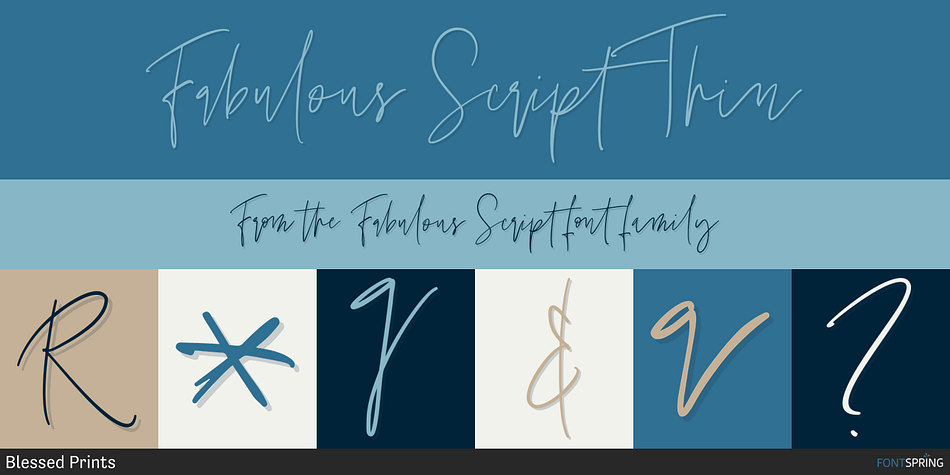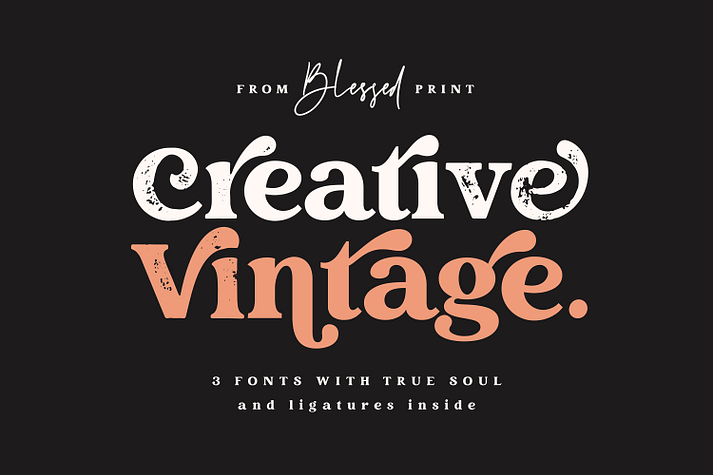
Fabulous Script Thin
Fabulous Script is a display serif and modern calligraphy font family. This typeface has seven styles and was published by Blessed Prints.
Creative Vintage - a modern serif typeface with vintage charm, fashionable look and retro-modern style
Three fonts that match each other perfectly:
Creative Vintage Regular: Opentype serif font with clean shapes and precise kerning. It contains ligatures and alternates with a total of 669 PUA encoded glyphs
Creative Vintage Draft: Modern serif font with chunky, imperfect edges and shabby look. This font is a strict copy of the regular version, including glyph names, kerning, and ligatures, so you can easily change the style on the go. Alternates appears automatically when you type a plus sign after any letter or even a ligature.
Fabulous font: Modern calligraphy font with straight appearance. It comes with 3 weight (thin, normal and bold). All glyphs, ligatures and alternates are PUA coded. Elegant slashes are integrated into the letters. This script has all the necessary opentype features. Just enter numbers after each letter or [ before and at the end ] to get long lines.